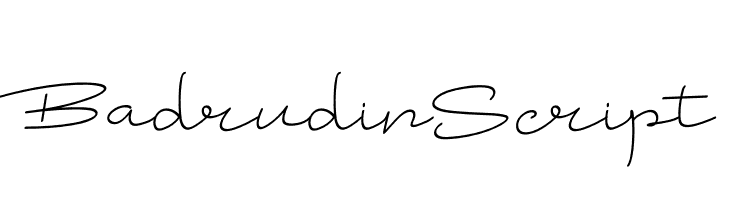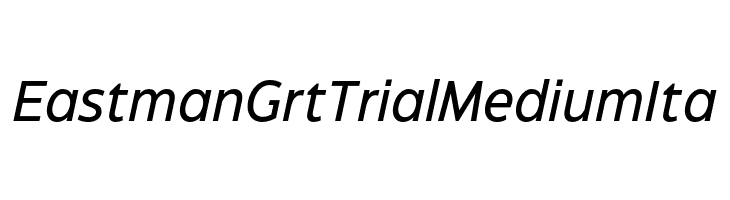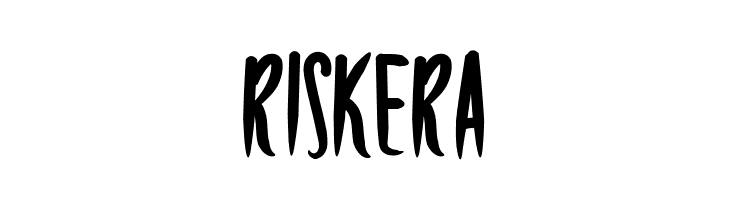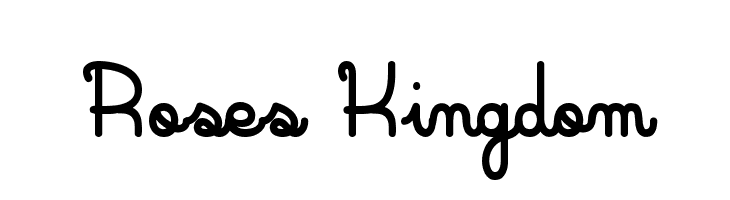
A modern, italic sans-serif font with clean lines and balanced proportions.
A bold, italic slab serif font with high contrast and a modern vintage style.
A bold, playful font with a hand-drawn, whimsical style.
A fragmented, textured font with a dynamic and edgy appearance.
A bold, 3D italic font with a futuristic and tech-inspired design.
A bold, rugged, condensed italic font with a textured, distressed appearance.
A lively and elegant script font with smooth, cursive strokes.
A modern, circular-themed font with concentric line designs for a futuristic look.
A modern script font with elegant, flowing lines and high contrast.
A bold, modern font with an inverted, geometric design.